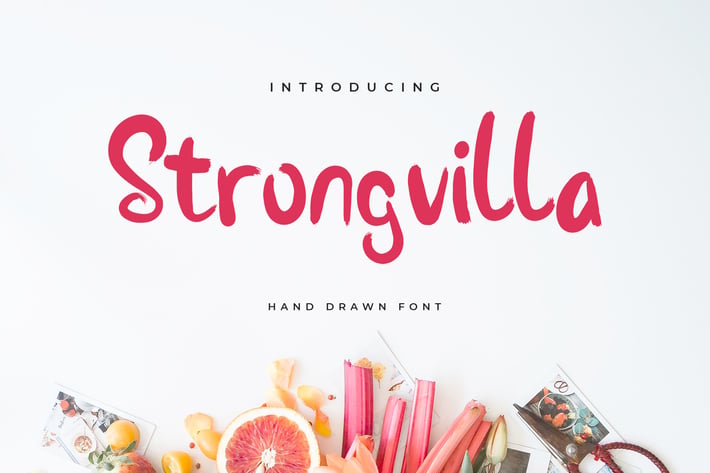
Stongvilla Brush Handwritten Font
Stongvilla Brush Handwritten Font yummy font with extra street food graphics. It's perfectly suited for any culinary projects like street food, food truck, restaurant, cafe and any branding material like logo, menu, packaging, quotes, flyer, poster, banners,